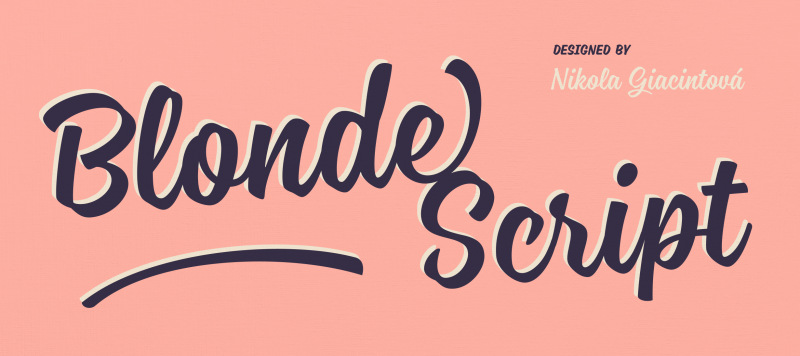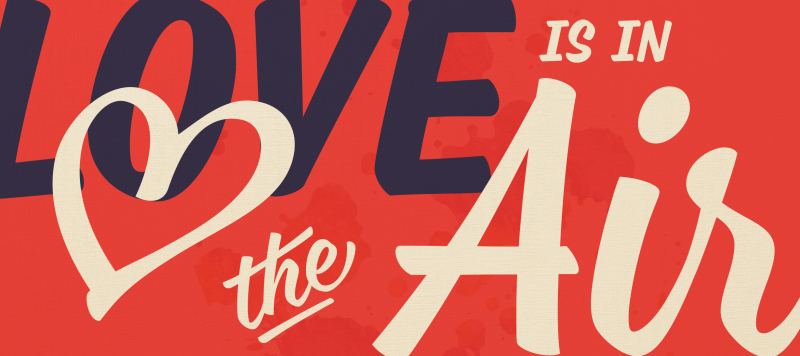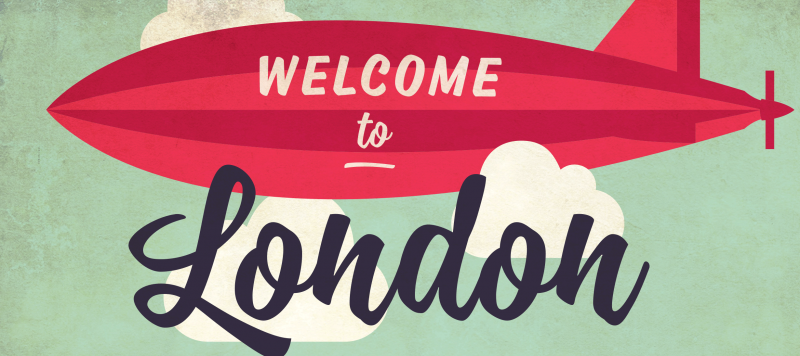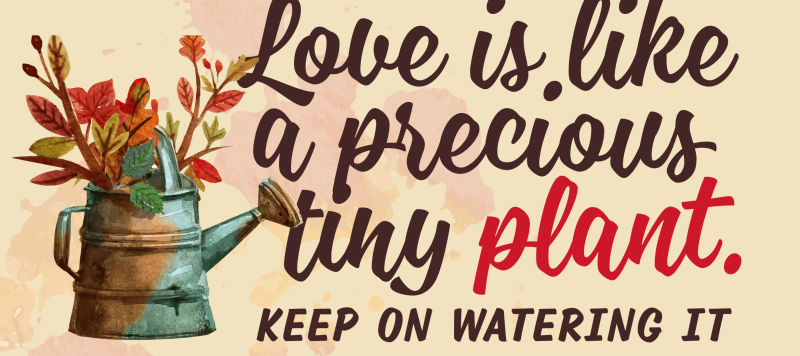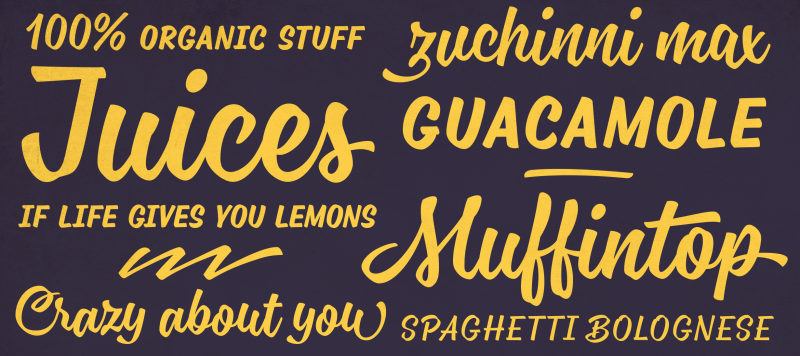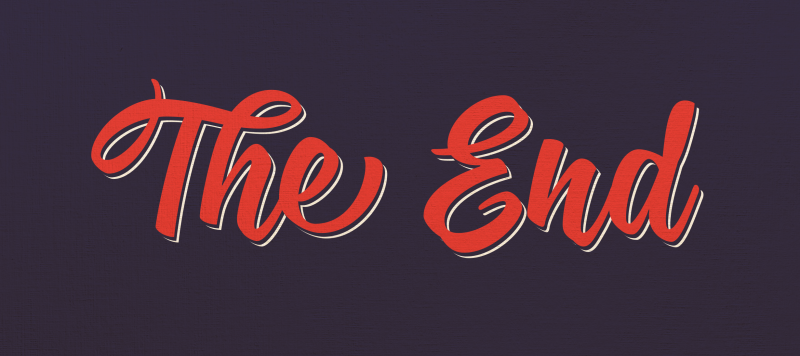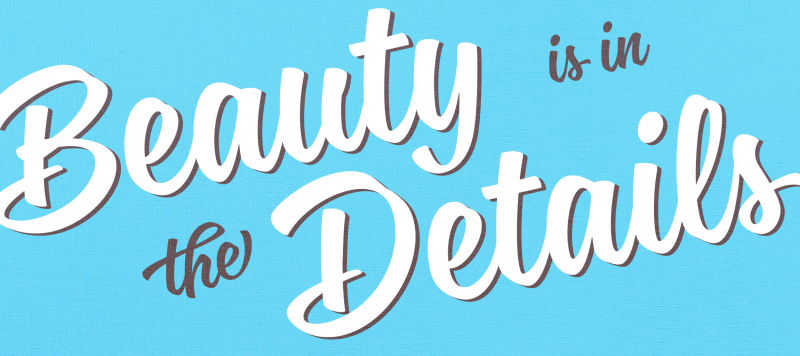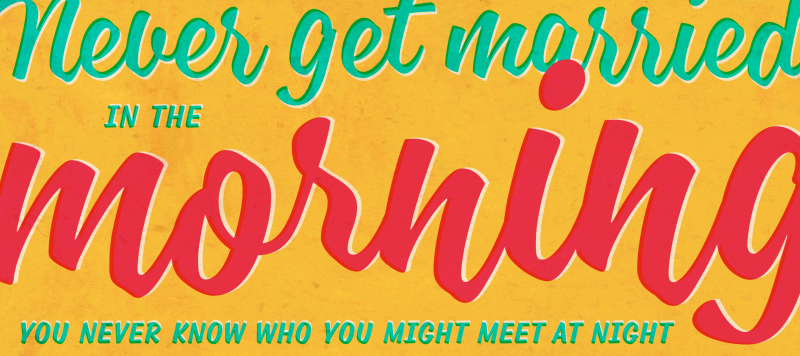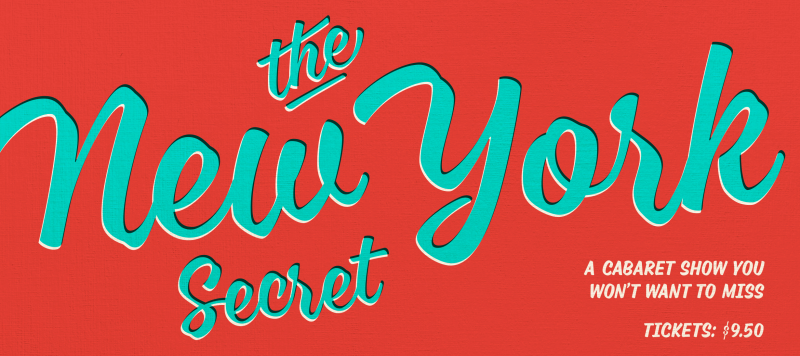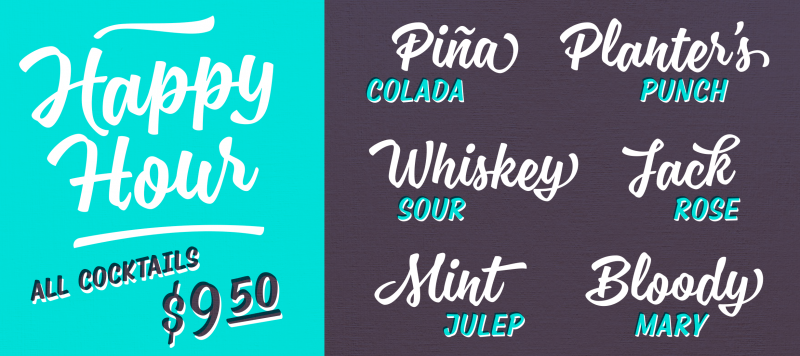
Blonde Script is a single font full of stylistic alternates. It includes special glyphs for price tags; logotypes for words like ‘for’, ‘of’, ‘the’, and ‘with’; and even a hand-written heart symbol. The font’s design is perfect for cafés and restaurants. Use it for menus, placards, and other point of sale advertisements. Text set in Blonde Script, with its normal setting, maintains a rather even baseline; however, as soon as Stylistic Set 1 or 2 are activated, the letters begin to dance. Their movement becomes more fluid and informal. Blonde Script has so many OpenType features that it even offers Small Caps – quite an unusual bonus for a script typeface. The font includes three kinds of figures, too.
Family Name Blonde Script
Designer(s) Nikola Giacintová
Classification Script, Display